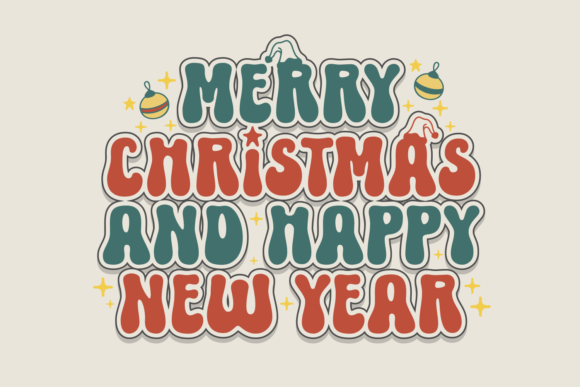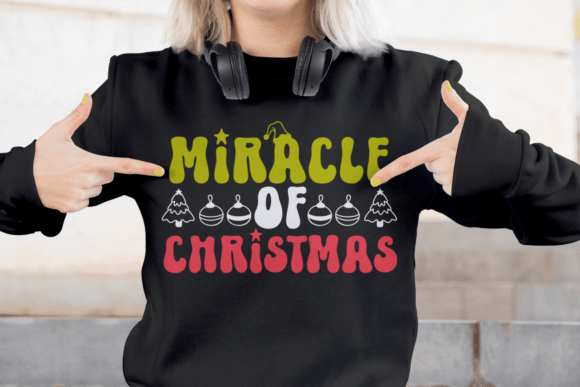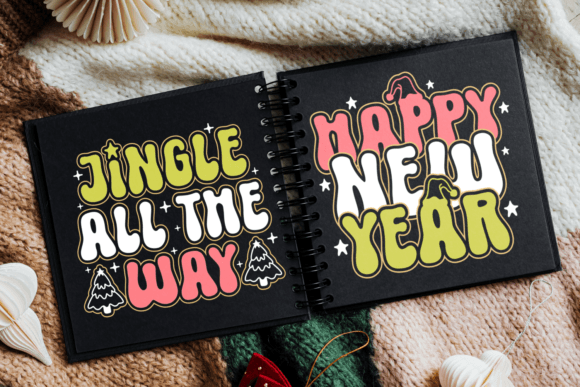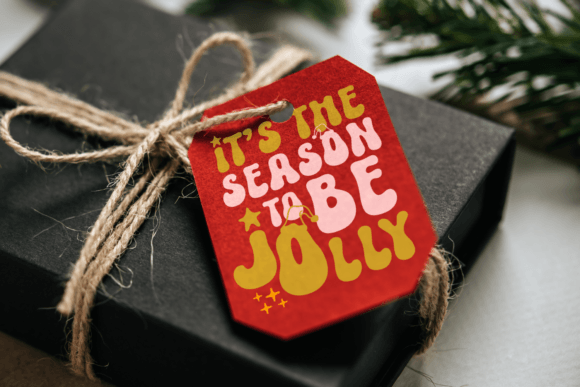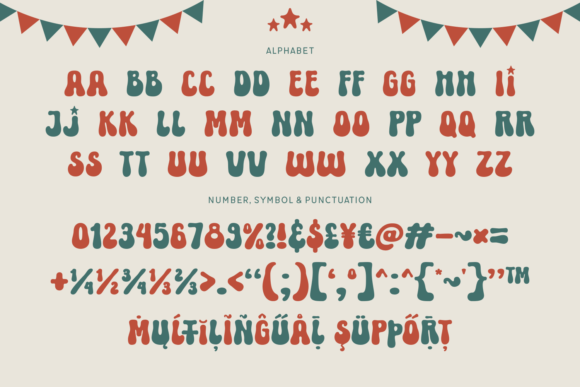
Deck the Halls with Design Magic
It’s that time of the year when creativity knows no bounds, and the world is filled with the spirit of joy and giving. As a designer, you’re probably no stranger to the thrill of bringing a project to life, and the satisfaction of seeing your vision unfold. But have you ever wished for a font that captures the essence of the holiday season in all its whimsical glory?
Enter the Amazing Santa Font, a delightful display font designed to add a cozy and warm accent to your designs. This lovely font is perfect for creating festive projects that stand out from the crowd, from holiday cards to gift tags and more. With its PUA encoding, you’ll have access to all the glyphs and swashes you need to create truly magical designs. Whether you’re a seasoned pro or just starting out, the Amazing Santa Font is sure to be a valuable addition to your design toolkit.
Amazing Santa Font Key Features
- Font Family: Amazing Santa Font comes in a single font family with 2 font styles – Regular and Bold.
- Character Count: The font family includes a wide range of characters, including uppercase and lowercase letters, numbers, and punctuation marks.
- Unique Characteristics: The Amazing Santa Font features a unique, hand-drawn design with a playful and festive feel, perfect for holiday-themed projects.
Designer Review: Amazing Santa Font
Overall, I think the Amazing Santa Font has some great qualities, but it also has some areas that could be improved. Let’s start with the good stuff ✨.
- The font has a nice, festive feel to it, perfect for holiday-themed designs.
- The letterforms are playful and fun, with a bit of a vintage vibe that could add to the holiday cheer.
- The font is highly customizable, with a wide range of options for adjusting the size, color, and style of the text.
However, there are also some limitations to consider ⚠️.
- The font may be a bit too over-the-top for some designs, and could come across as cheesy or tacky if not used carefully.
- The font’s vintage vibe may not be to everyone’s taste, and could be a turn-off for some designers.
Overall, I think the Amazing Santa Font is a fun and festive addition to any holiday design project. With a bit of care and attention to balance, it could be a great choice for designers looking to add some holiday cheer to their work.
Alternatives to Amazing Santa Font
The Great Vibes Font is a beautiful, modern script font that’s perfect for adding a touch of elegance to your designs. It’s ideal for use in titles, headings, and other text elements where a playful yet sophisticated look is desired.
Comparison: Great Vibes Font has a more refined and polished look compared to Amazing Santa Font, which is more playful and whimsical. Great Vibes Font is suitable for a wider range of designs, from fashion and lifestyle to food and beverage.
Pacifico is a beautiful, elegant script font that’s perfect for adding a touch of sophistication to your designs. It’s ideal for use in titles, headings, and other text elements where a classic, timeless look is desired.
Comparison: Pacifico Font has a more classic and timeless look compared to Amazing Santa Font, which is more playful and modern. Pacifico Font is suitable for a wide range of designs, from fashion and lifestyle to travel and tourism.
Q: Can I customize Amazing Santa Font to fit my design needs?
Yes, the Amazing Santa Font is fully editable in software such as Adobe Illustrator and Photoshop. You can adjust font size, color, and style to fit your design requirements. Additionally, the font’s OpenType features allow for advanced typographic control, including ligatures, swashes, and stylistic sets.